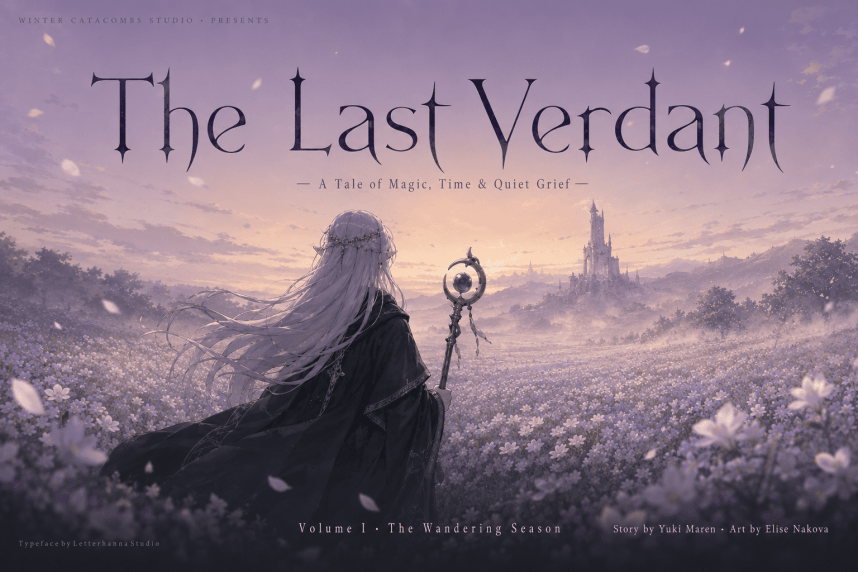
Aquino Font Family
Aquino Font Family is a display calligraphic stencil typeface inspired by a liturgic book made by portuguese friar Tomás Aquino in 1735 – Collectaneum Sacri Ordinis Cisterciensis ad usum Congregationis S. Mariae de Alcobaça.
Friar Aquino’s Calligraphy shows a distinctive typographic flavour with a uniform and consistent execution of the serifed letters. He also wrote with unconnected strokes, resulting in stencil-like letterforms.
We analysed and followed the structures of Aquino’s minuscules, and used as models lowercase letters from different parts of the book. The design of the uppercase letters however is mostly original, as we decided to make them more consistent with the lowercase shapes and their logic of construction, instead of reproducing Aquino’s decorative majuscules.